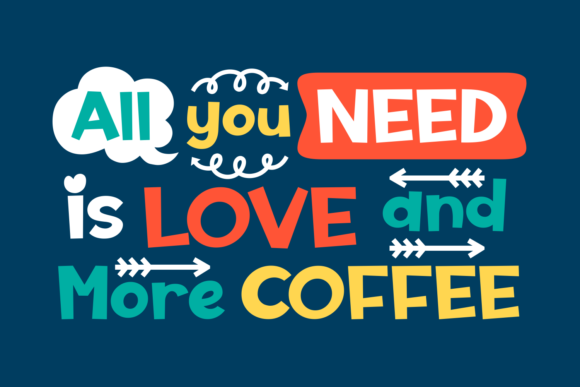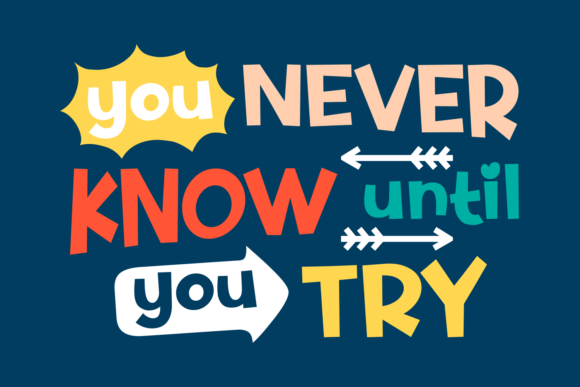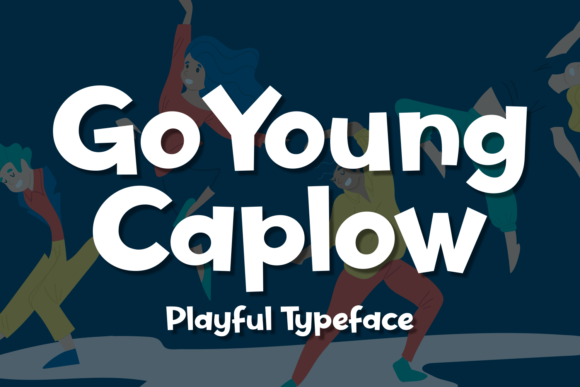
Discover the Whimsical Charm of Go Young Caplow Font
Are you tired of using the same old fonts in your designs? Look no further than Go Young Caplow, a fun and joyful display font that’s sure to add a touch of personality to your projects. With its incredible feel and whimsical charm, this font is perfect for designers and crafters looking to add some excitement to their work.
What is Go Young Caplow Font?
Go Young Caplow is a display font designed to make a statement. Its unique and playful design makes it perfect for use in headlines, titles, and other display text. The font features a distinctive, hand-drawn feel that’s both fun and engaging. Whether you’re working on a graphic design project, crafting a logo, or creating social media graphics, Go Young Caplow is sure to add a touch of personality to your work.
The Characteristics of Go Young Caplow Font
So, what sets Go Young Caplow apart from other fonts? Here are just a few of its key characteristics:
- Whimsical design: Go Young Caplow features a playful, hand-drawn design that’s sure to add a touch of whimsy to your projects.
- Display font: This font is designed specifically for use in display text, making it perfect for headlines, titles, and other prominent text.
- Fun and joyful feel: The font has an infectious, upbeat feel that’s sure to add energy to your designs.
- Unique personality: Go Young Caplow has a distinctive personality that’s sure to set your designs apart from the crowd.
How to Use Go Young Caplow Font
So, how can you use Go Young Caplow in your designs? Here are a few ideas to get you started:
- Headlines and titles: Use Go Young Caplow to add a touch of personality to your headlines and titles.
- Logos and branding: This font is perfect for use in logos and branding materials, where its unique personality can help set your brand apart.
- Social media graphics: Add a touch of whimsy to your social media graphics with Go Young Caplow.
- Invitations and announcements: Use this font to add a playful touch to invitations, announcements, and other special event materials.
Tips for Pairing Go Young Caplow with Other Fonts
When pairing Go Young Caplow with other fonts, here are a few tips to keep in mind:
- Contrast with a serif font: Pair Go Young Caplow with a serif font, such as a classic Times New Roman or a modern serif font, to create a striking contrast.
- Match with a script font: For a more playful look, pair Go Young Caplow with a script font, such as a handwritten or calligraphy font.
- Use with a bold font: For a bold and eye-catching look, pair Go Young Caplow with a bold, sans-serif font.
Go Young Caplow is a fun and joyful display font that’s sure to add a touch of personality to your designs. With its whimsical charm and incredible feel, this font is perfect for designers and crafters looking to add some excitement to their work. Whether you’re working on a graphic design project, crafting a logo, or creating social media graphics, Go Young Caplow is sure to inspire your creativity.